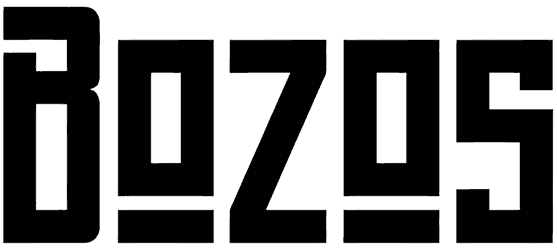
Bozos Font
The key point for impressing the audience and grabbing their attention at the first glance is creating a kind of graphic content that easily connects to their minds and in this way, a wonderful square font such as Bozos would be helpful.
With the help of this all-caps geometric font, your posters, banners, brochures, book covers, or logos will look brilliant. Considering its ability to convey a sense of futuristic and dynamic, not fully supporting numbers would be easily overlooked.